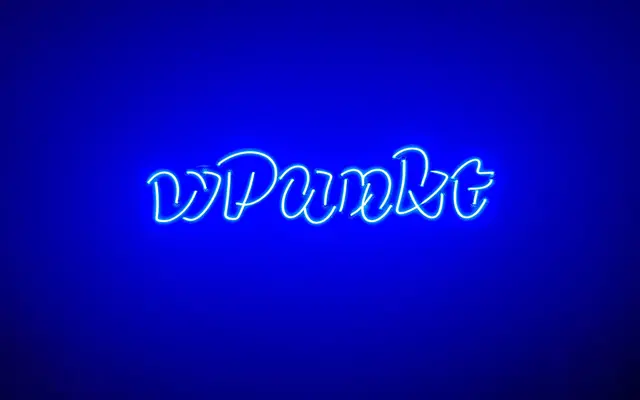
Birra
Darden Studio · Elena Schneider, Mark De Winne, Josh Darden, Vera Evstafieva, Viktoriya Grabowska · 2021
A collection of five characterful display faces, each named after a beer style, unified under a single expanding family conceived at Darden Studio.
Each of the five styles, Saison, Pils, Bruin, Lambic and Stout, carries its own distinct personality rather than functioning as weight variants of a single design. Stout, the original, dates to a 2008 description by Joshua Darden as 'conjuring whimsy', and the broader Flight was conceived by Joyce Ketterer and David Jonathan Ross with art direction by Eben Sorkin. The project is framed as a continually growing collection, with further styles expected beyond the current five.
Birra is a collection of stylistically distinct display faces united under a single family name; Stout, originally described as 'conjuring whimsy', signals an expressive, display-oriented intent across all five styles.